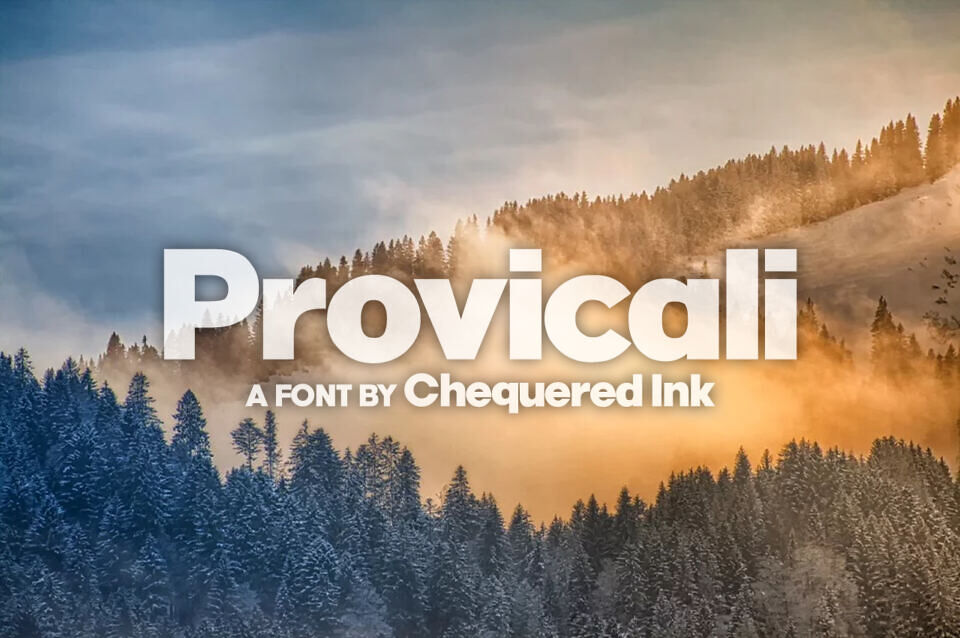
Provicali Font
Provicali is a bold, clean sans-serif typeface by Chequered Ink. Its strong, compact letterforms create a modern, professional look ideal for headlines, titles, posters, branding, and display graphics